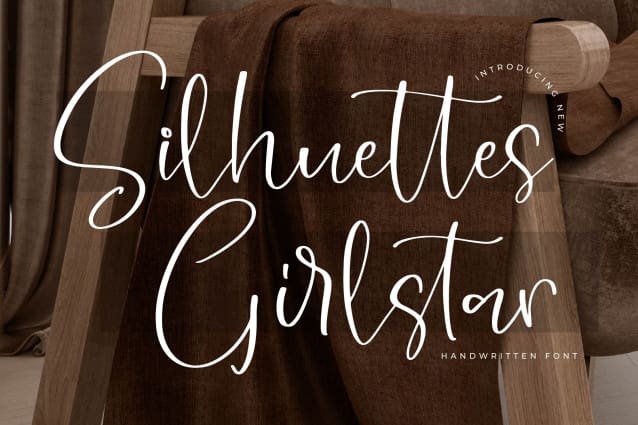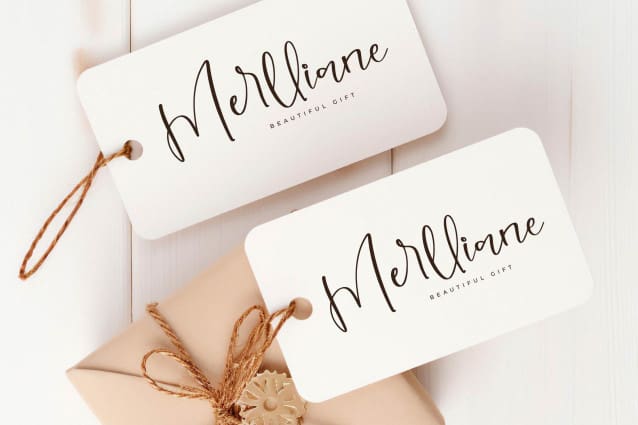
Silhuettes Girlstar Font
Silhuettes Girlstar Font – Handwritten Font , from Letterena, is a Luxury Script font, suitable for any projects such as: logos, branding projects, homeware designs, product packaging, mugs, quotes, posters, shopping bags, t-shirts, book covers, name card, invitation cards, greeting cards, label, photography, watermark, special events, and all your other luxury and beautiful projects that need a Luxury serif taste.